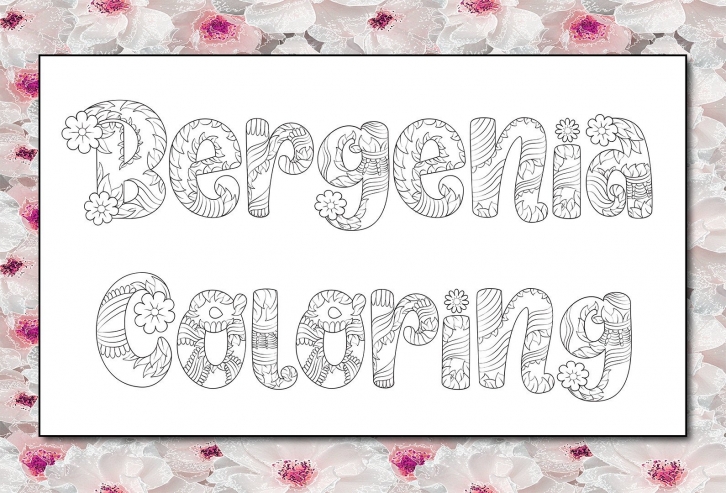
Bergenia Coloring is a special coloring font for creating custom adult coloring pages. Make your custom coloring pages using this unique decorative typeface and start having fun now!